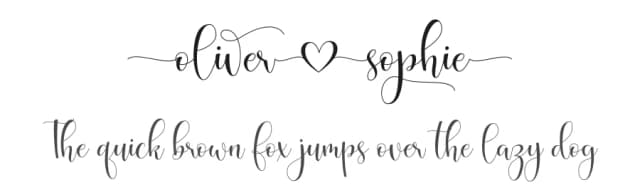
About Hestia Font
Hestia ships with 1 OpenType feature you can switch on in apps that support them (Illustrator, InDesign, Affinity, Figma, CSS font-feature-settings).
Hestia supports 107 languages.
Hestia Font is a script font that shines as a display or heading face. Pair it with a clean sans-serif or serif font for body text β the contrast creates a clear hierarchy while the two styles stay balanced and easy to read.
Hestia Font